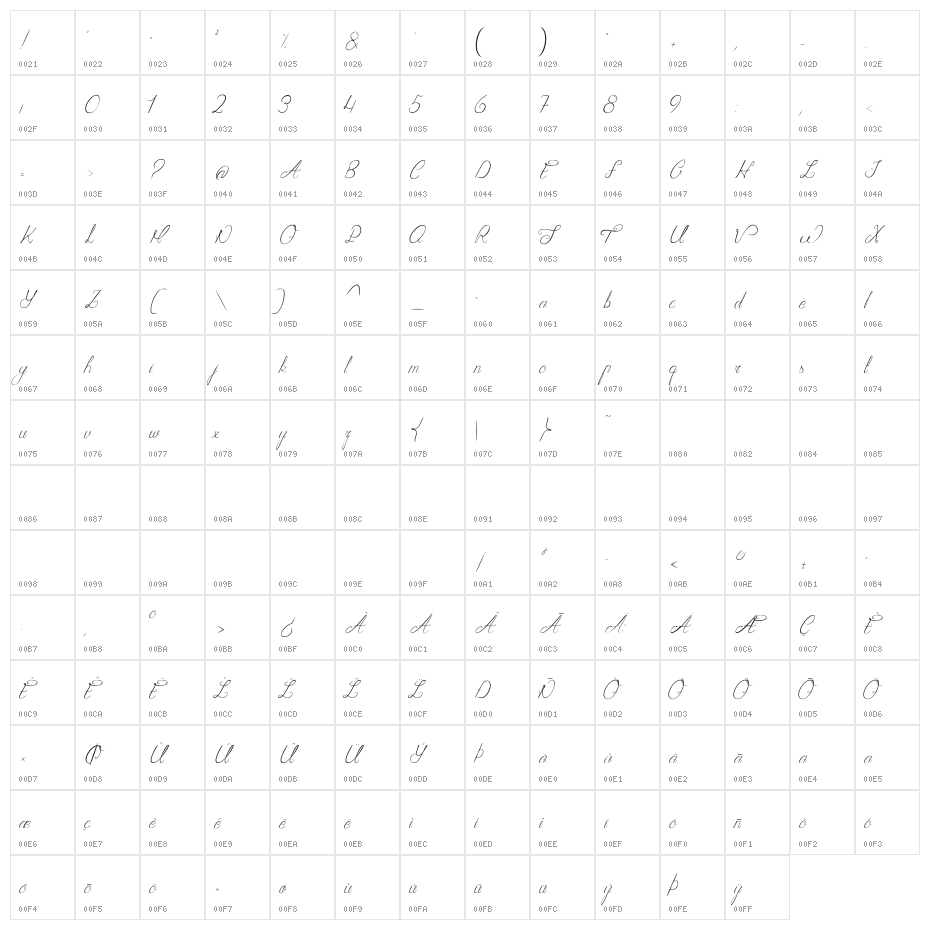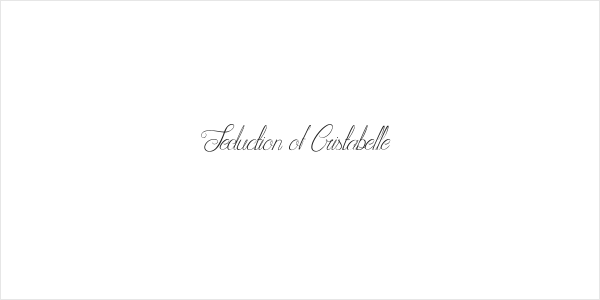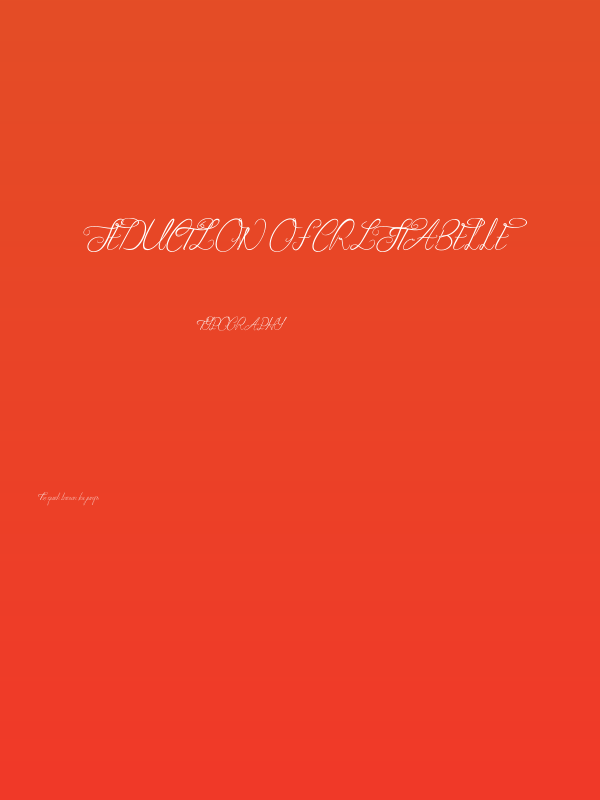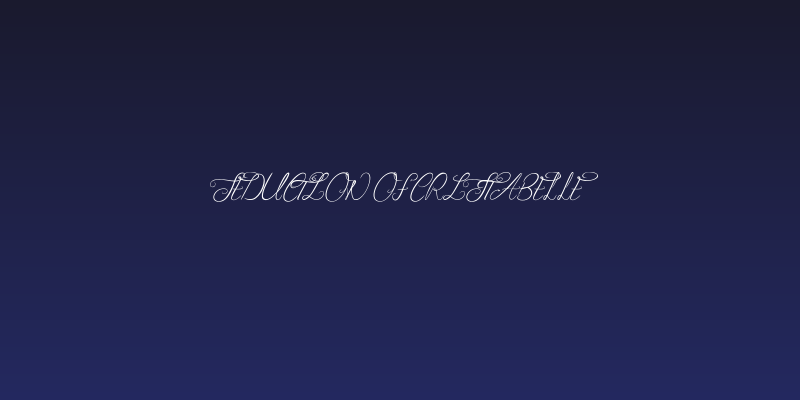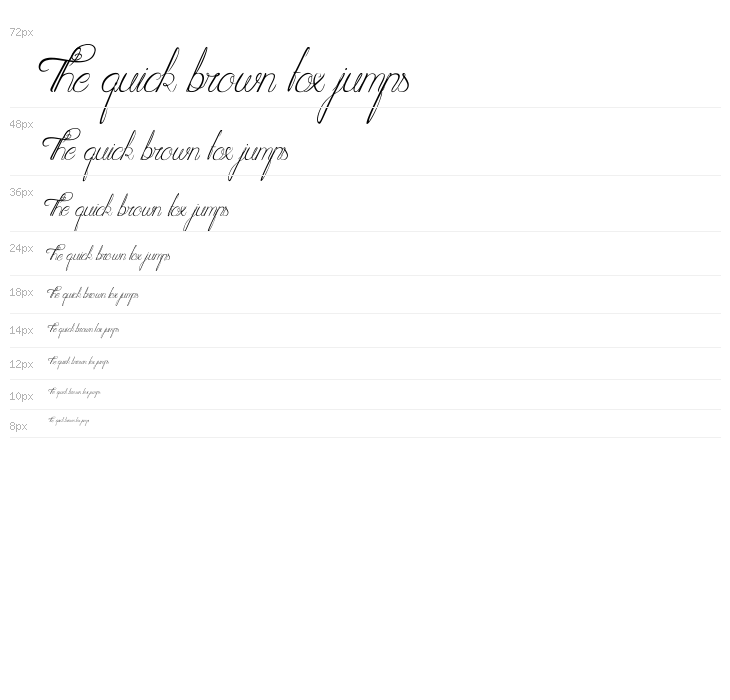
Seduction of Cristabelle Font
Seduction of Cristabelle Description
This elegant script font features flowing, interconnected letters that exude sophistication and grace. The uppercase letters are ornate with sweeping curves and flourishes, while the lowercase letters maintain a delicate balance between readability and decorative style. The numerals are consistent with the overall aesthetic, featuring similar curves and a touch of flair. Special characters are designed to complement the script style, adding versatility for various design needs. This font is ideal for projects that require a touch of elegance and refinement.
| Overall Style | Elegant, Decorative |
| Proposed Projects | Wedding invitations, luxury branding, elegant packaging, formal event programs, and decorative signage. |